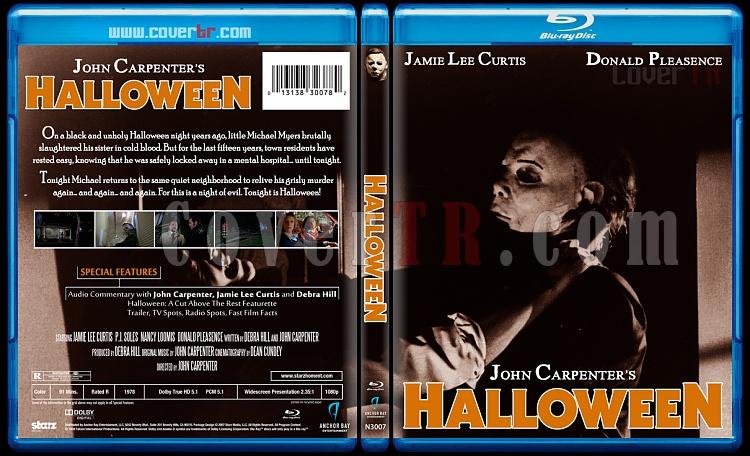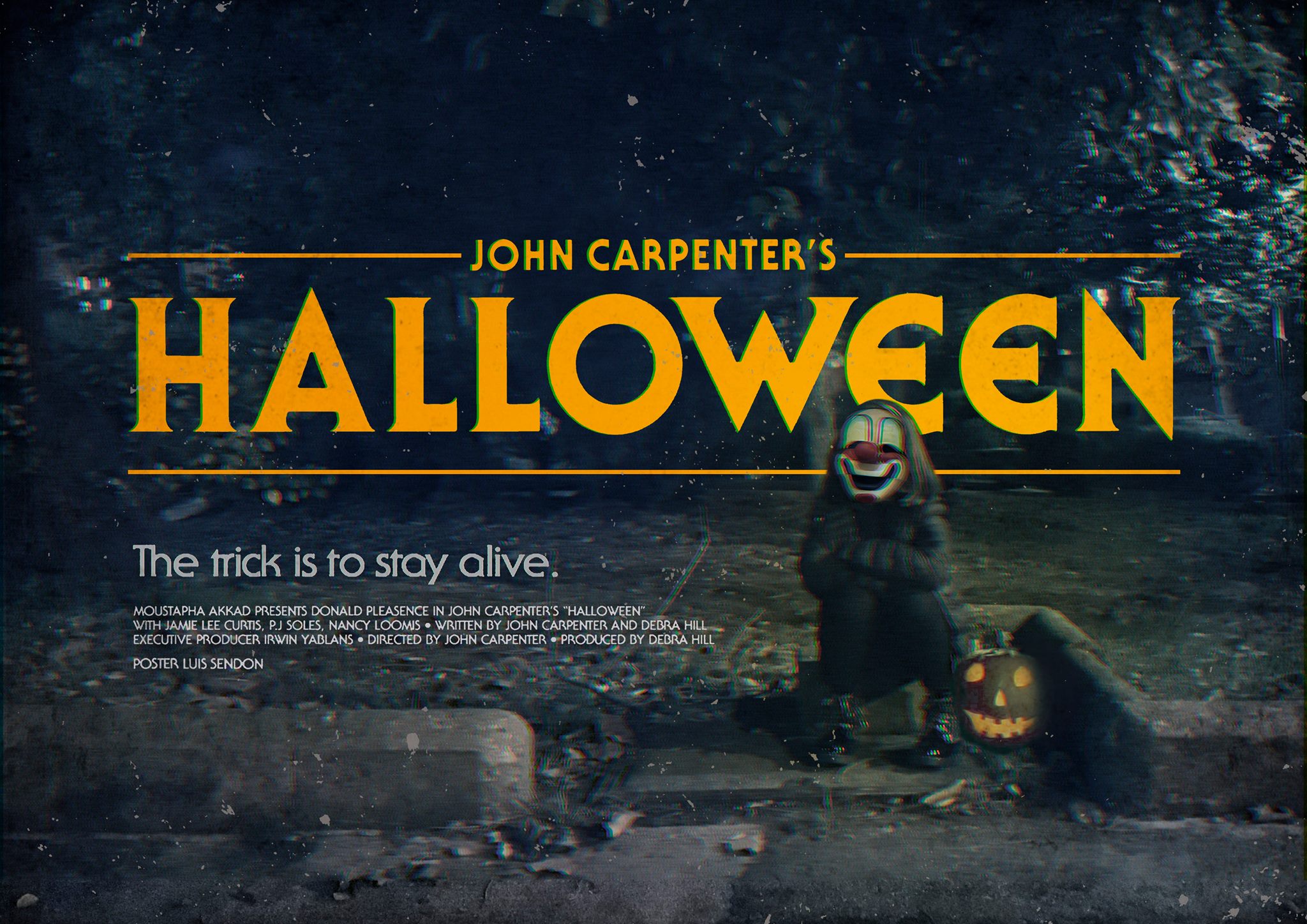
Free John Carpenter Halloween Font Free Typography Fonts
john carpenter halloween font
John carpenters menacing theme for halloween sends some into a panic and some smiling.
John carpenter halloween font. Escape from new york is a 1981 american dystopian science fiction film directed by john carpenter who also directed the famous film halloween 1978. The plot is set in the fictional midwestern town of haddonfield illinois. On halloween night in 1963 a six year old michael myers dressed in a clown costume stabbed his sister to death. Composed and performed by the man himself carpenters influences were bernard herrmann and ennio morricone with whom carpenter worked on the thingthe opening sequence shares some similarities with a film that carpenter adores roy ward bakers quatermass and the pit.
Nina saxon film design. Contributed by toshi omagari. Show us a sample and well try to find the font. Scared ya didnt i.
About halloween 1978 film font. Well look at the expressionist lettering of the first unforgettable nosferatu the eighties font from john carpenters cult hit halloween and anecdote about stanley kubrick and the shining but thats enough spoilers. These fonts look pretty spooky and will give you the shivers perfect for halloween. Movie titles 1996 pacific title.
Halloween is a 1978 american independent slasher film. Like in all good horror films theres no harm in a bit of suspense. Long before you see the dogs transmuted into vicious physically indeterminate fiends or kurt russells monocular anti hero named snake surfing in the submerged city grid of a future dystopian los angeles the essence of most any john carpenter film is evident in its opening moments even before his name is seen keystoned atop some spare and ominous title. After sitting in a mental hospital for 15 years myers escapes and.
The font used for the film title in the poster is very similar to gamer by canada type or cornered by softmaker both fonts were likely made based on an old film type named checkmate by lettergraphics. You can leave a response or trackback from your own site.